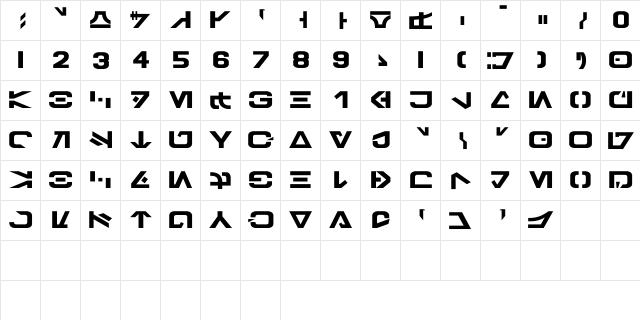
Galactic Basic Regular
Design Context for Galactic Basic Typeface
Galactic Basic is a composed and adaptable typeface that performs quietly and consistently across a wide range of design contexts.
Pro Tip: Use Galactic Basic in both headline and body roles to test its range before committing to a single application.